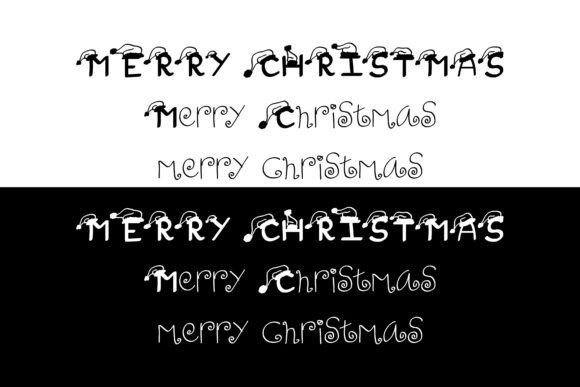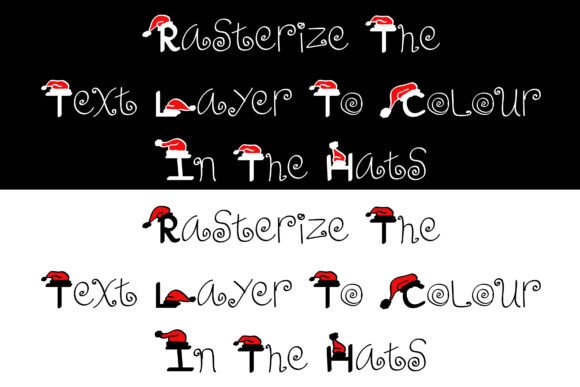
Introduction to Christmas Hats Font
Christmas Hats is a hand-drawn font perfect for any Christmas-themed project.
The uppercase letters each have a Christmas hat and the lower case have a fun curly design to them This is a True Type Font compatible with most programs.
Key Features of Christmas Hats Font